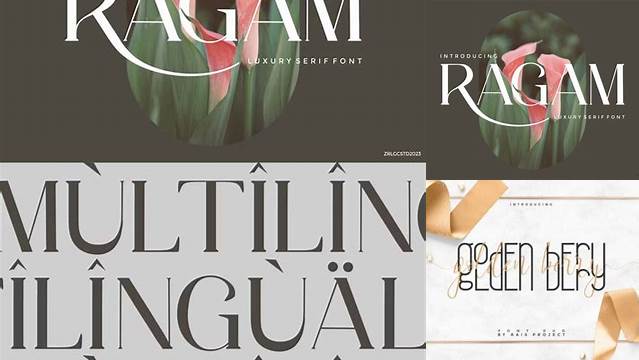
Looking to add a touch of sophistication and elegance to your design projects? The Ragam Luxury Font might just be the answer. This exquisite typeface is known for its clean lines, stylish curves, and overall luxurious feel. In this comprehensive guide, we'll explore what makes Ragam Luxury Font so special, where you can download it for free, and how to use it effectively in your designs. So, let's dive in and discover the world of Ragam Luxury Font!
What is Ragam Luxury Font?
Ragam Luxury Font is a typeface designed to exude elegance and sophistication. It typically features a modern and refined aesthetic, making it perfect for projects that require a touch of class. This font family often includes various weights and styles, such as regular, bold, italic, and light, providing versatility for different design needs. The unique characteristics of Ragam Luxury Font include its clean lines, balanced letterforms, and a distinctive flair that sets it apart from more generic fonts. Its elegant appearance makes it a popular choice for branding, logos, invitations, and other high-end design applications. The font is designed to be highly legible while maintaining a stylish look, making it suitable for both headlines and body text. The carefully crafted curves and serifs (if present) add to its luxurious feel, making it a go-to option for designers aiming to convey sophistication and exclusivity. Whether used in digital or print media, Ragam Luxury Font helps elevate the overall design, leaving a lasting impression of elegance and quality. This font's appeal lies in its ability to balance modernity with classic elegance, making it a timeless choice for various design projects. The subtle details in each letterform contribute to its luxurious appearance, ensuring that it stands out without being overly ornate. This makes it a versatile choice for projects ranging from wedding invitations to corporate branding, as it can adapt to different contexts while maintaining its distinctive character. Ultimately, Ragam Luxury Font is more than just a typeface; it's a design asset that can significantly enhance the visual appeal of any project. Its sophisticated design and versatility make it a valuable addition to any designer's toolkit. The font's aesthetic is carefully balanced to ensure readability and visual appeal, making it suitable for a wide range of applications. From digital platforms to print media, Ragam Luxury Font consistently delivers a touch of elegance and sophistication, making it a favorite among designers and creatives.
When you're diving into the world of fonts, understanding the key features and characteristics of a font like Ragam Luxury is super important, guys. These aspects dictate how the font will perform in different design scenarios and whether it truly fits your project's needs. So, what makes Ragam Luxury Font stand out? Let's break it down.
First off, elegance and sophistication are the cornerstones of Ragam Luxury Font. Think clean lines, smooth curves, and a generally refined look. It's the kind of font that makes you think of high-end brands and exclusive events. The letterforms are meticulously crafted to exude a sense of class, making it a go-to choice for designers aiming to convey a luxurious feel. The balance between modern aesthetics and classic design elements is one of its defining features, ensuring that it looks both contemporary and timeless. This makes it a versatile option that can be used in a wide range of design contexts.
Next up, versatility is another major plus. Ragam Luxury Font usually comes in various weights and styles, including regular, bold, italic, and sometimes even light or thin versions. This gives you a lot of flexibility to play with different looks within the same font family. Whether you need a delicate touch for body text or a strong presence for headlines, Ragam Luxury Font has got you covered. The range of styles allows for creative variations without sacrificing consistency, which is crucial for maintaining a cohesive visual identity. Its adaptability makes it suitable for a variety of applications, from digital platforms to print media, ensuring a unified and elegant look across all your designs.
Readability is also a key factor. A font can be stunning, but if it's hard to read, it's not doing its job. Ragam Luxury Font is designed to be legible, even in smaller sizes. This makes it suitable for body text as well as headlines. The letter spacing and kerning are carefully adjusted to ensure that each character complements the others, creating a smooth reading experience. The emphasis on readability, combined with its elegant design, makes it a practical choice for a wide range of applications. Whether it's for website content or printed materials, Ragam Luxury Font ensures that your message is conveyed clearly and stylishly.
Moreover, the distinctive flair of Ragam Luxury Font sets it apart from more generic typefaces. There’s usually something unique about its letterforms – maybe a subtle curve, an interesting serif, or a particular slant – that gives it character. This uniqueness is what makes it memorable and helps your designs stand out. The distinctive elements are carefully incorporated to enhance the font's overall aesthetic without compromising its elegance or readability. This ensures that it maintains a sophisticated look while also being easily recognizable.
In short, Ragam Luxury Font is all about blending elegance, versatility, and readability with a unique flair. It's a font that's designed to make a statement while still being practical, making it a valuable asset for any designer. Whether you're working on branding, invitations, or any other project that needs a touch of class, Ragam Luxury Font is definitely worth considering.
Whether you're a seasoned designer or just starting out, adding Ragam Luxury Font to your toolkit can open up a world of creative possibilities. Its versatility and timeless appeal make it a valuable resource for a wide range of projects. From creating elegant logos and branding materials to designing stunning invitations and website layouts, Ragam Luxury Font can help you achieve a polished and professional look. So, embrace its elegance, explore its potential, and elevate your designs with Ragam Luxury Font. Happy designing, everyone!